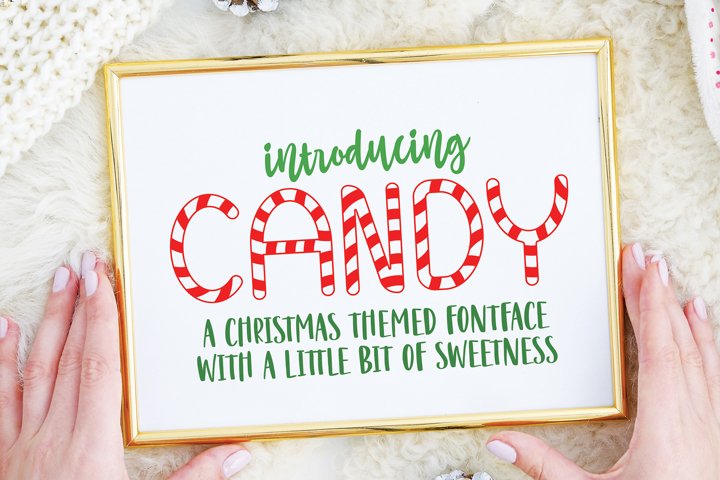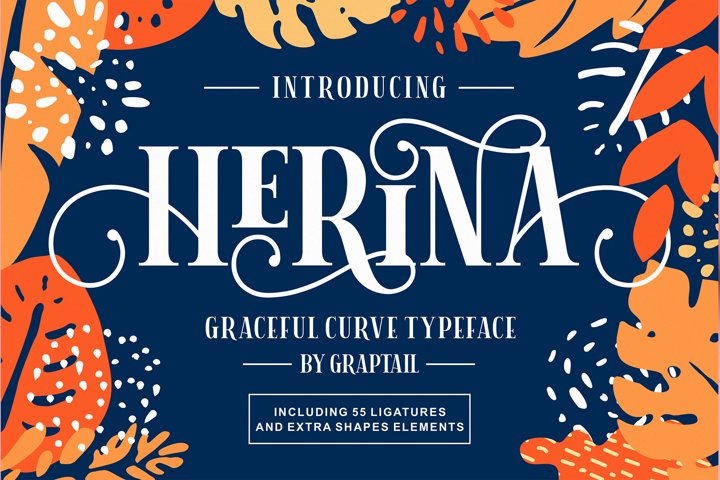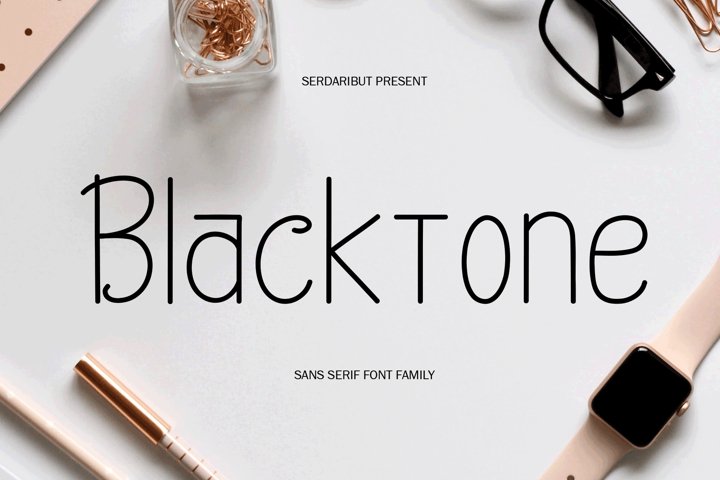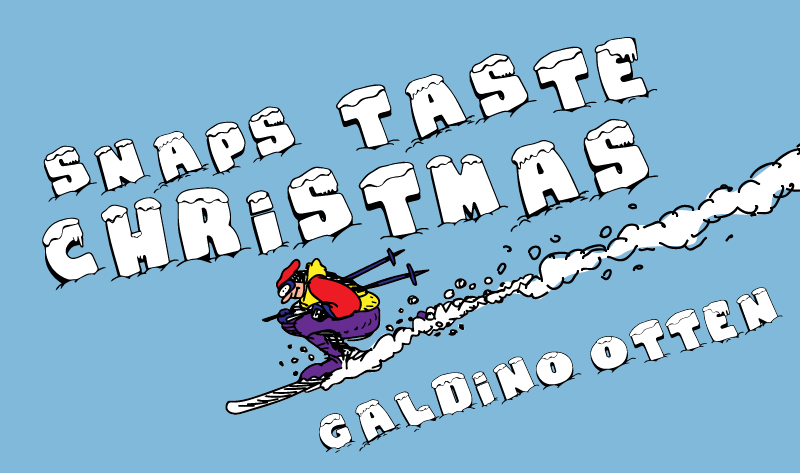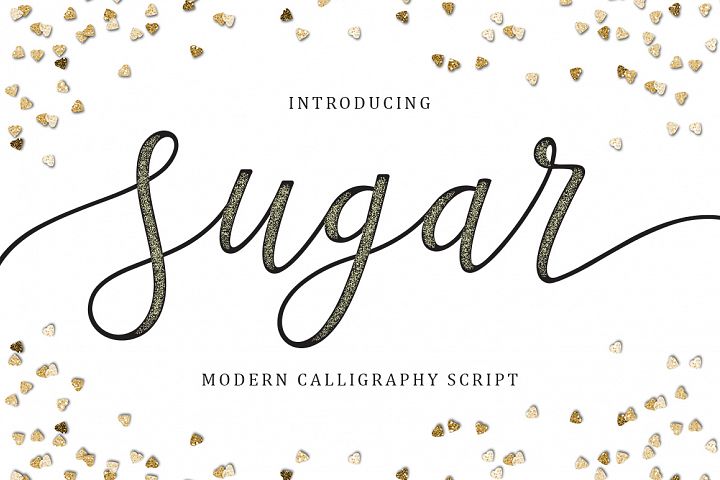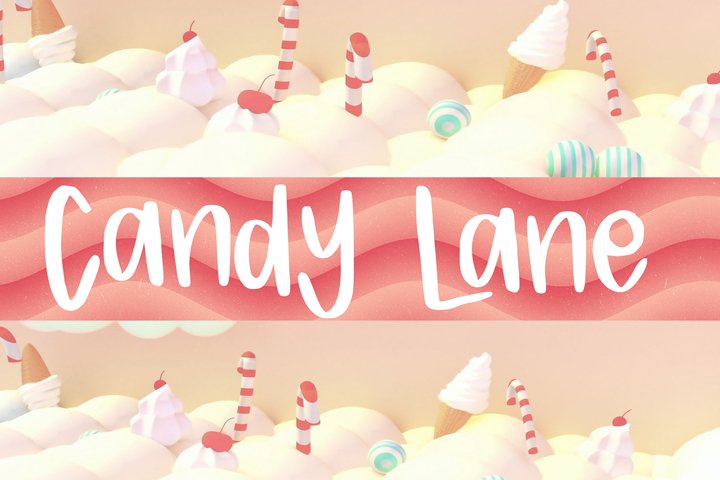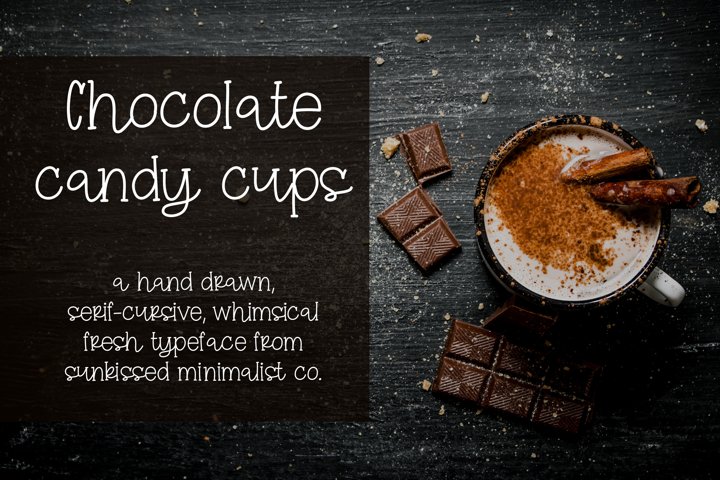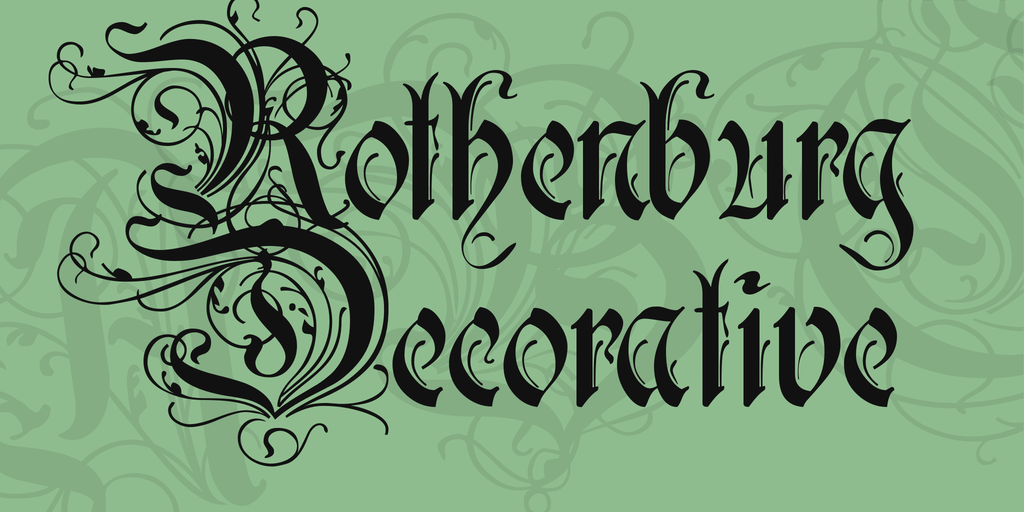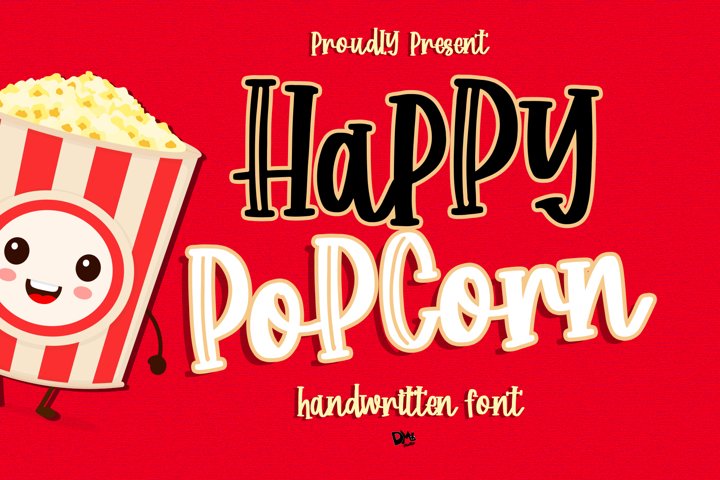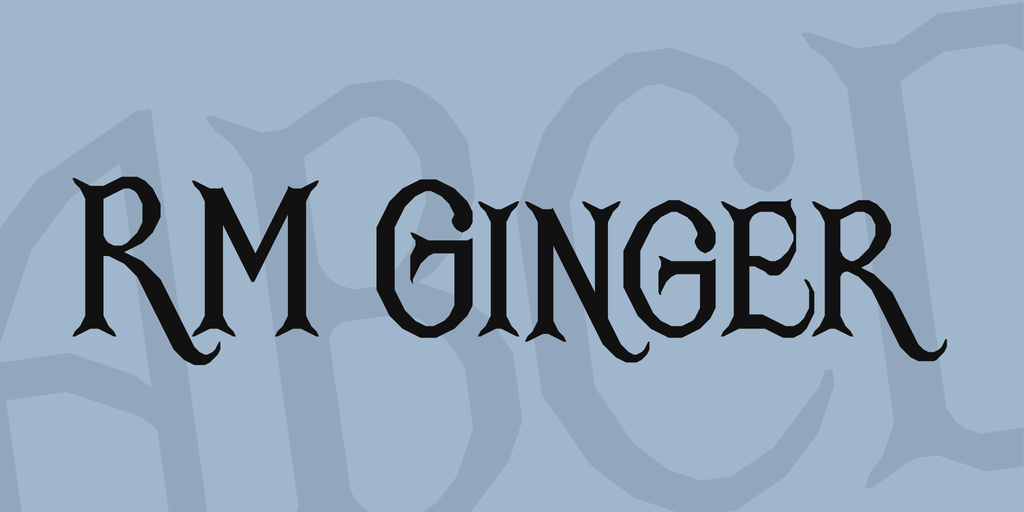
Christmas is my absolute favorite time of year!
I love the lights, the music, the gift giving, all of it!
This year I’m pretty obsessed with Christmassy fonts. These free Christmas fonts come in all kinds of styles.
Some are sweet, some are formal, and some are just plain fun!
A lot of these fonts are just your average font, but they would look awesome on a Christmas card or a party invitation.
Other fonts have cool effects, like snow, sparkles, and Christmas lights!
On to our free Christmas fonts!
There were some super cute free Christmas fonts in there, no?
My favorite was “The Perfect Christmas,” although “Father Christmas” ran a close second! After all, I’m a sucker for a good calligraphy font.